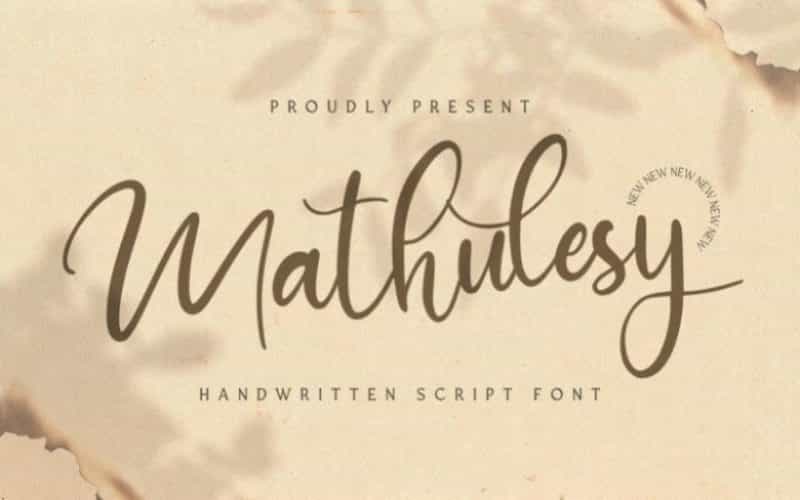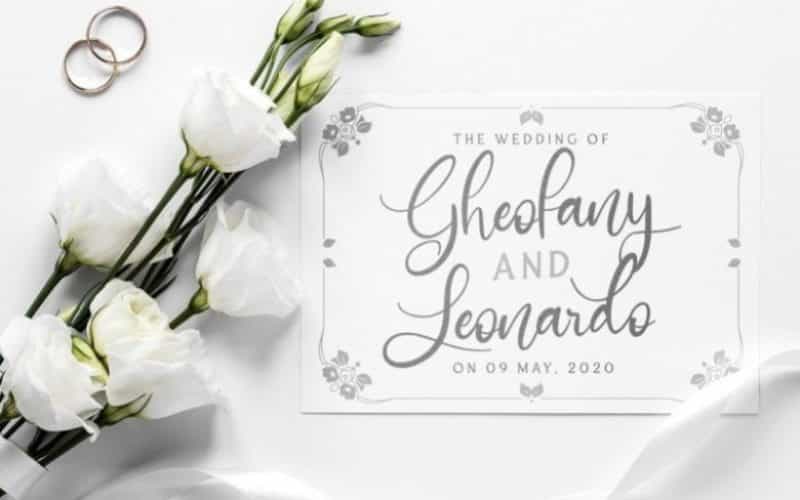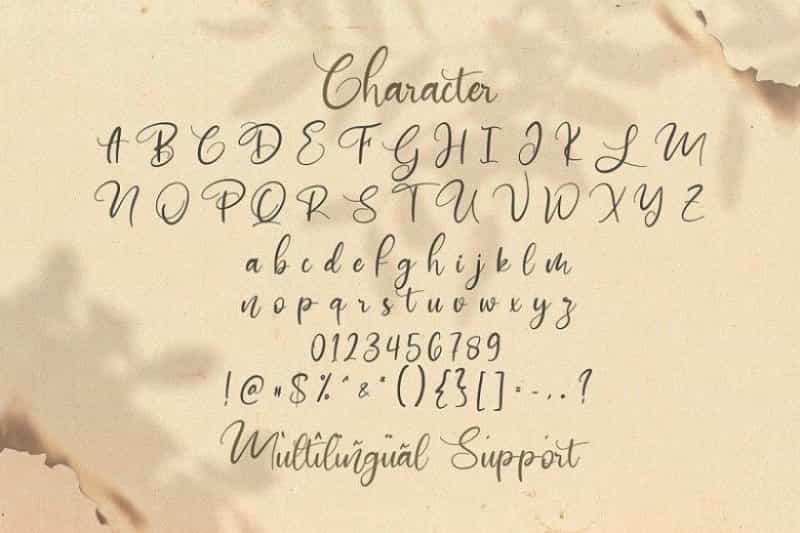
Mathulesy can be described as script Font that features Handwritten and Calligraphy style. The Mathulesy font was created using digital brush strokes make this font appear authentic. This font is ideal for wedding invitations, business cards and logo brands, signature and finally, calligraphy.